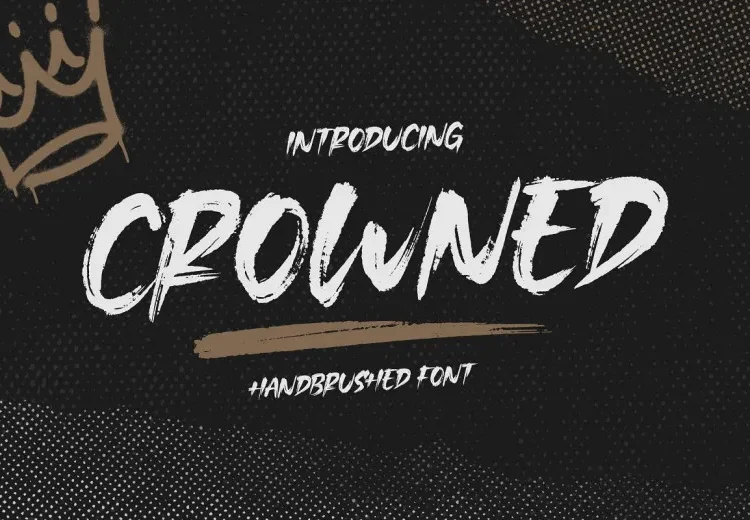
Crowned Font
Crowned is an eye-catching hand-brushed font that brings a warm, welcoming feel to any project. With its natural, organic strokes, this font is perfect for creating contemporary designs that stand out. Whether used for packaging, branding, magazines, wedding invitations, social media posts, or text overlays, Crowned adds a personal touch that resonates with modern aesthetics.
This versatile font helps convey messages with elegance and charm, making it an excellent choice for projects that aim to create a friendly, approachable atmosphere. Whether you’re designing a brand identity or crafting invitations, Crowned is the ideal font to enhance your creative work.